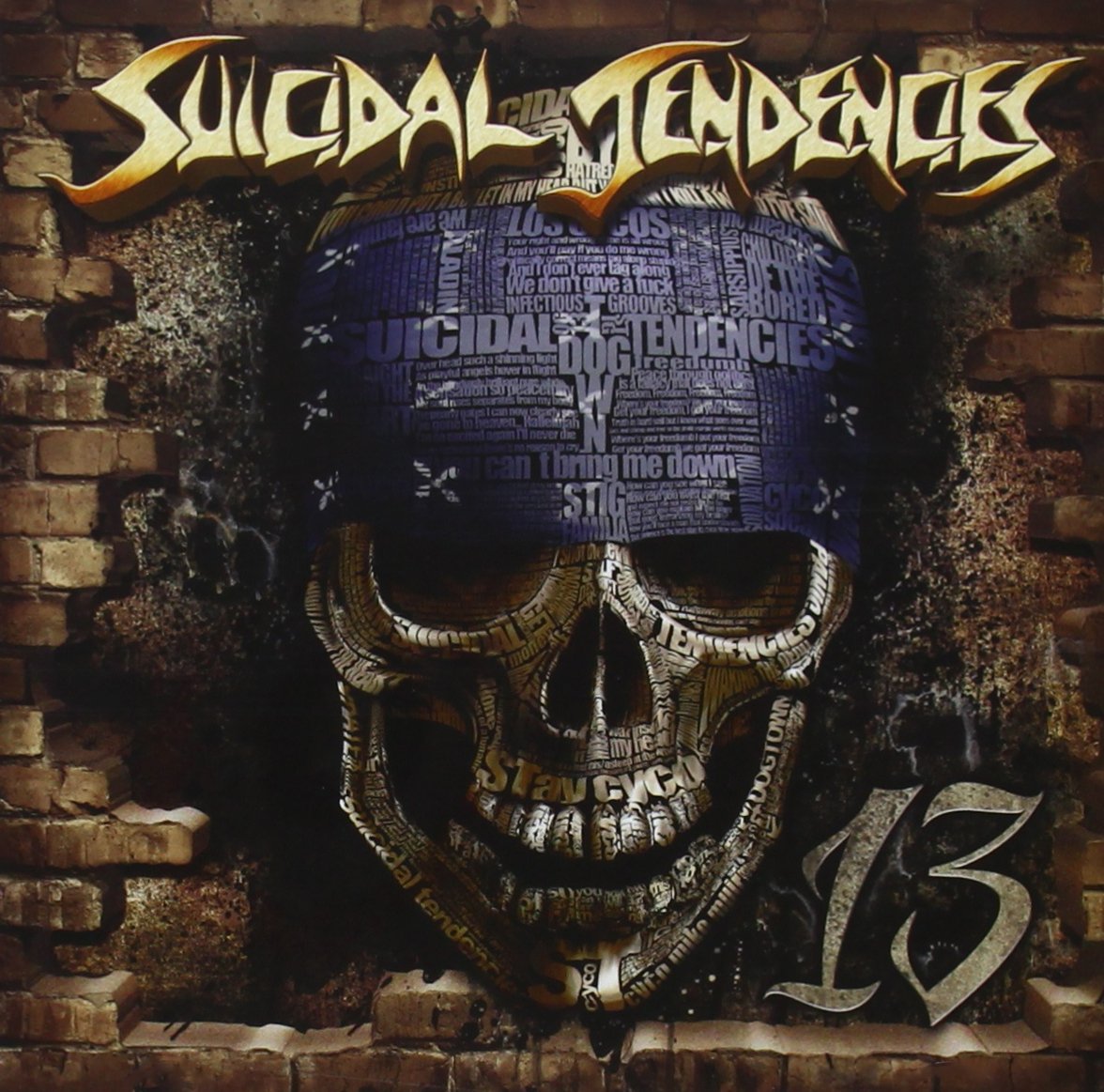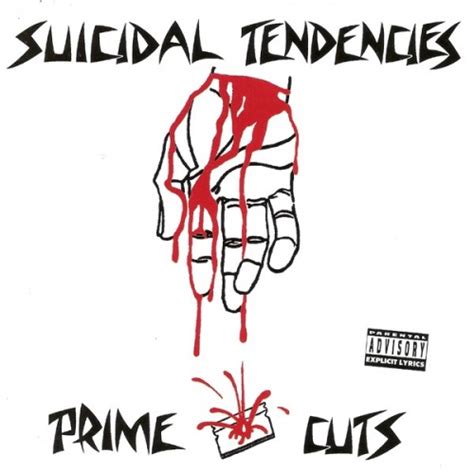
Suicidal Tendencies Font
Suicidal Tendencies Font - Web lastly, follow the steps below to download and install the fonts in your local system and use it : Web suitribe venice style is a gothic, modern font designed by cyco maxi. Web suicidal tendencies are an american crossover thrash band founded in 1980 in venice, california by vocalist mike muir. Click the “download” button below. The font is free for both personel. The font is licensed as free.
Web suicidal tendencies are an american crossover thrash band founded in 1980 in venice, california by vocalist mike muir. Web suitribe venice style is a gothic, modern font designed by cyco maxi. The font is free for both personel. Web lastly, follow the steps below to download and install the fonts in your local system and use it : Click the “download” button below. The font is licensed as free.
Web suicidal tendencies are an american crossover thrash band founded in 1980 in venice, california by vocalist mike muir. The font is licensed as free. The font is free for both personel. Web lastly, follow the steps below to download and install the fonts in your local system and use it : Web suitribe venice style is a gothic, modern font designed by cyco maxi. Click the “download” button below.
Web suicidal tendencies are an american crossover thrash band founded in 1980 in venice, california by vocalist mike muir. The font is free for both personel. Click the “download” button below. Web suitribe venice style is a gothic, modern font designed by cyco maxi. Web lastly, follow the steps below to download and install the fonts in your local system.
Web lastly, follow the steps below to download and install the fonts in your local system and use it : Click the “download” button below. Web suitribe venice style is a gothic, modern font designed by cyco maxi. The font is licensed as free. The font is free for both personel.
Web lastly, follow the steps below to download and install the fonts in your local system and use it : The font is free for both personel. Web suicidal tendencies are an american crossover thrash band founded in 1980 in venice, california by vocalist mike muir. Click the “download” button below. Web suitribe venice style is a gothic, modern font.
Web suitribe venice style is a gothic, modern font designed by cyco maxi. The font is free for both personel. Web lastly, follow the steps below to download and install the fonts in your local system and use it : The font is licensed as free. Web suicidal tendencies are an american crossover thrash band founded in 1980 in venice,.
The font is licensed as free. Click the “download” button below. Web lastly, follow the steps below to download and install the fonts in your local system and use it : Web suicidal tendencies are an american crossover thrash band founded in 1980 in venice, california by vocalist mike muir. The font is free for both personel.
Click the “download” button below. Web suicidal tendencies are an american crossover thrash band founded in 1980 in venice, california by vocalist mike muir. The font is licensed as free. Web suitribe venice style is a gothic, modern font designed by cyco maxi. Web lastly, follow the steps below to download and install the fonts in your local system and.
Web suitribe venice style is a gothic, modern font designed by cyco maxi. Click the “download” button below. Web suicidal tendencies are an american crossover thrash band founded in 1980 in venice, california by vocalist mike muir. The font is free for both personel.